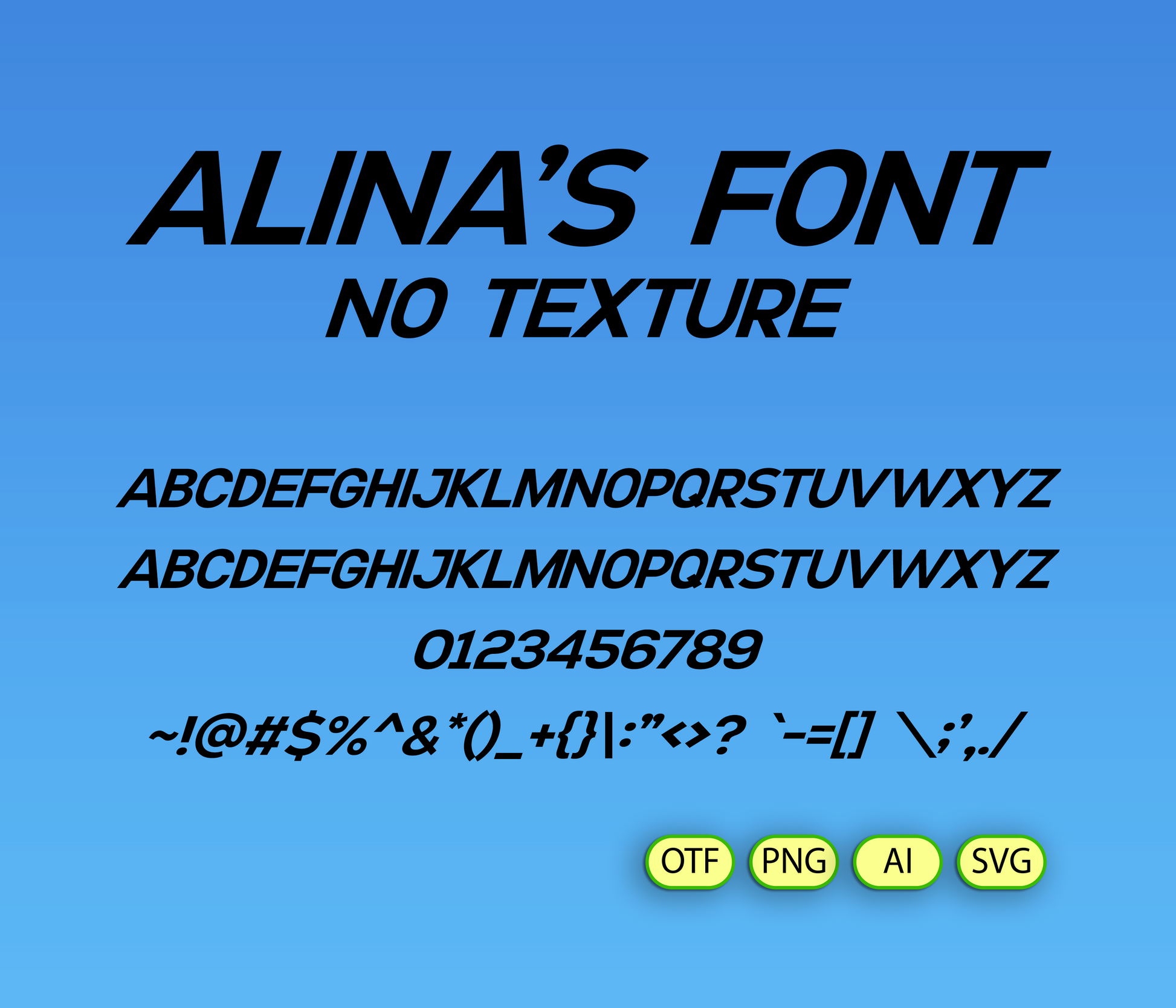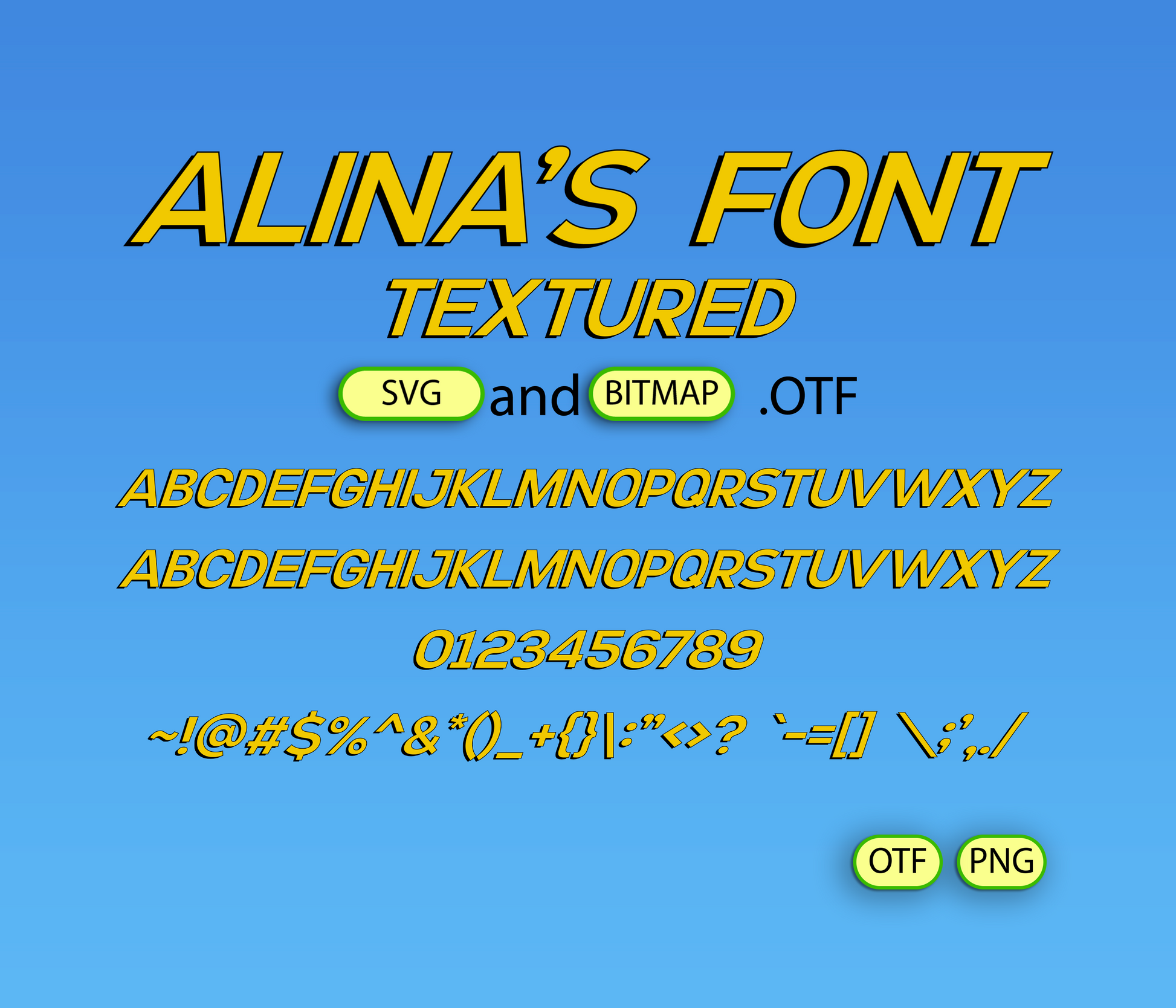
Skyward Space Era Family Font Textured
Dive into the delightful realm of tomorrow's world with our Skyward Space Era Family font, embodying the charm of a cherished atomic-age animated household. Perfect for vintage futurism fans, cartoon creators, celebration organizers, and artists, this font delivers the eccentric, cheerful essence of a famous floating family to your designs. Develop gathering announcements, themed collectibles, or digital artwork with the jovial spirit of this unforgettable clan's airborne escapades.
Our Skyward Space Era Family font showcases streamlined, atomic-age curves and rounded letters reflecting the hopeful vision of tomorrow from this timeless cartoon series. Ideal for:
1. Gathering Promotions: Eye-catching invitations, displays, streamers for assemblies, film screenings, nostalgic celebrations.
2. Collectible Development: Apparel, wall art, mementos capturing the essence of hovering automobiles and mechanical housekeepers.
3. Web Presence: Transform websites, journals, social platforms with lighthearted headers and visuals.
4. Cartoon Content: Genuine style for animated projects, motion designs, admirer artwork.
5. Individual Endeavors: Retro-tomorrow delight for memory books, handmade items, interior embellishments inspired by the orbital household.
Our font honors the celebrated cartoon, elevating your designs with its optimistic and futuristic character. Whether producing promotional elements, fashioning merchandise, or introducing a playful component to personal projects, this font conveys the joyful spirit of this atomic-age family. Eager to infuse retro-tomorrow charm into your creations? This font is your gateway to delightful, striking design.